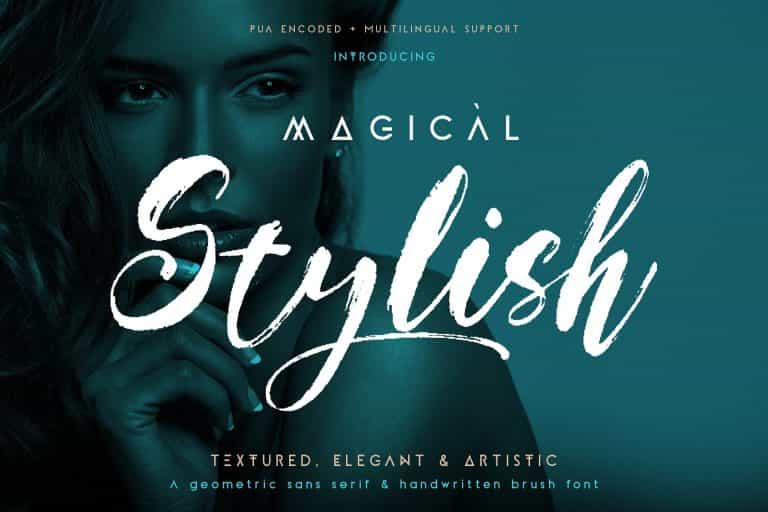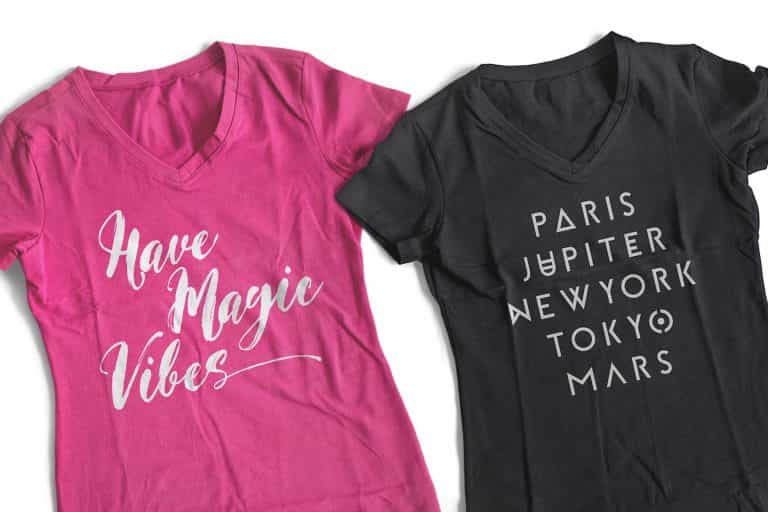
Discover Magical Stylish Font Duo, part of the Sans Serif Brush collection—a versatile and unique font perfect for adding a personal touch to your projects. Download it for free and enjoy crafting designs with style, from invitations to social media posts. This font is available exclusively for personal use, giving you the freedom to create without limits. Unlock your creativity with Magical Stylish Font Duo today!
Introducing Magical Stylish Font. MagicalStylish – font geometric and wet brush font. It is so simple to operate as long as you have typed and copied the text you want to use and then “Abracadabraaa” …. it works!It includes an alternative set of upper case letters, and a lower case letters to help you achieve the desired look.